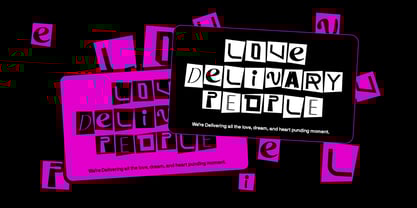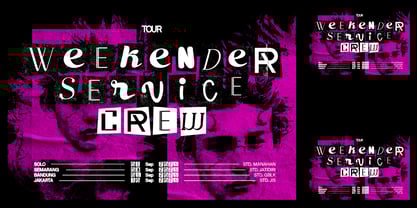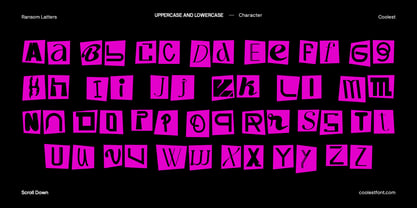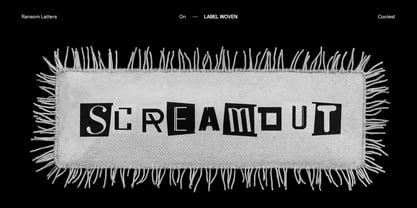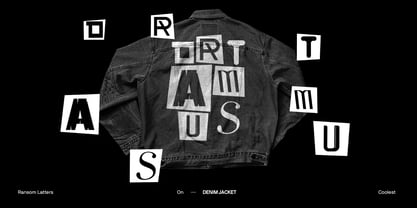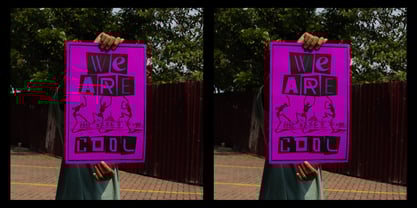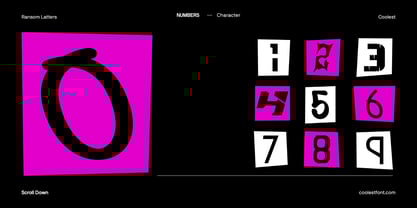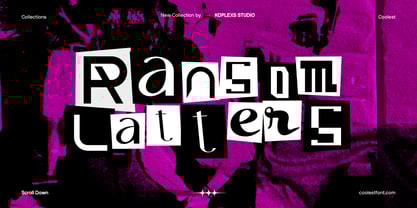
Ransom Letters
by Koplexs Studio
The Ransom Letters Font Family was designed by Ahmad Muslimin and published by Koplexs Studio. Ransom Letters contains 2 styles and family package options. More about this family
Ransom Latters Font is a modern display font with a distinctive ransom-style collage aesthetic. Each character is crafted with irregular shapes and playful variations, creating a fancy font and playful font look that stands out in any visual design. Inspired by handcrafted cutout letters, this typeface offers an artistic and expressive personality while maintaining clarity and strong visual rhythm. This font is ideal for designers who want to bring experimental, bold, and artistic energy into their work. With its textured contrast and deliberate inconsistency, Ransom Latters Font delivers a unique visual identity suitable for modern brands and creative editorial layouts. Its structure and stylistic diversity make it highly effective as a branding font, logo font, headline font, heading font, poster font, cover font, luxury font, goods font, and cool font. Whether used in fashion campaigns, music graphics, merchandise, or digital marketing visuals, this typeface provides memorable expression and contemporary character. Best Uses Branding and logo design Editorial and magazine layouts Music and fashion promotional graphics Posters, flyers, and advertising displays Packaging, merchandise, and product labels Social media content and visual campaigns Creative headings and cover designs Get Ransom Latters Font today and elevate your design with a unique and modern display style.